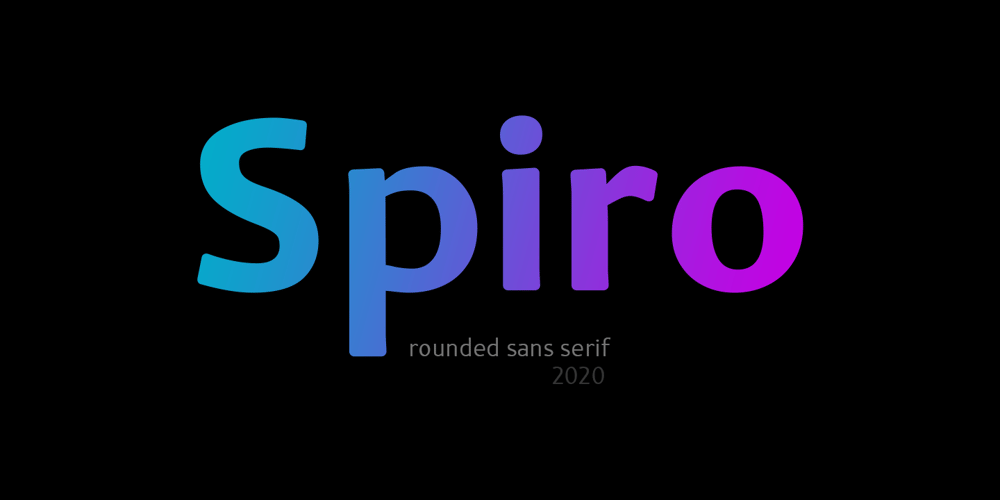
Spiro 2020 Font Family was designed by Alex Etewut and published by Etewut. Spiro 2020 contains 3 styles and family package options. Introducing rounded sans serif Spiro. The family includes 3 styles: regular, bold and italic. Spiro supports multi language symbols as æ, ß, ç, etc. It also has all necessary ligatures and extra glyphs you may need. To use them you have to open glyphs panel in menu Window. The font is compatible on both Windows and Mac. You can use it in all popular apps like Adobe, Corel Draw, Microsoft, Final Cut etc.